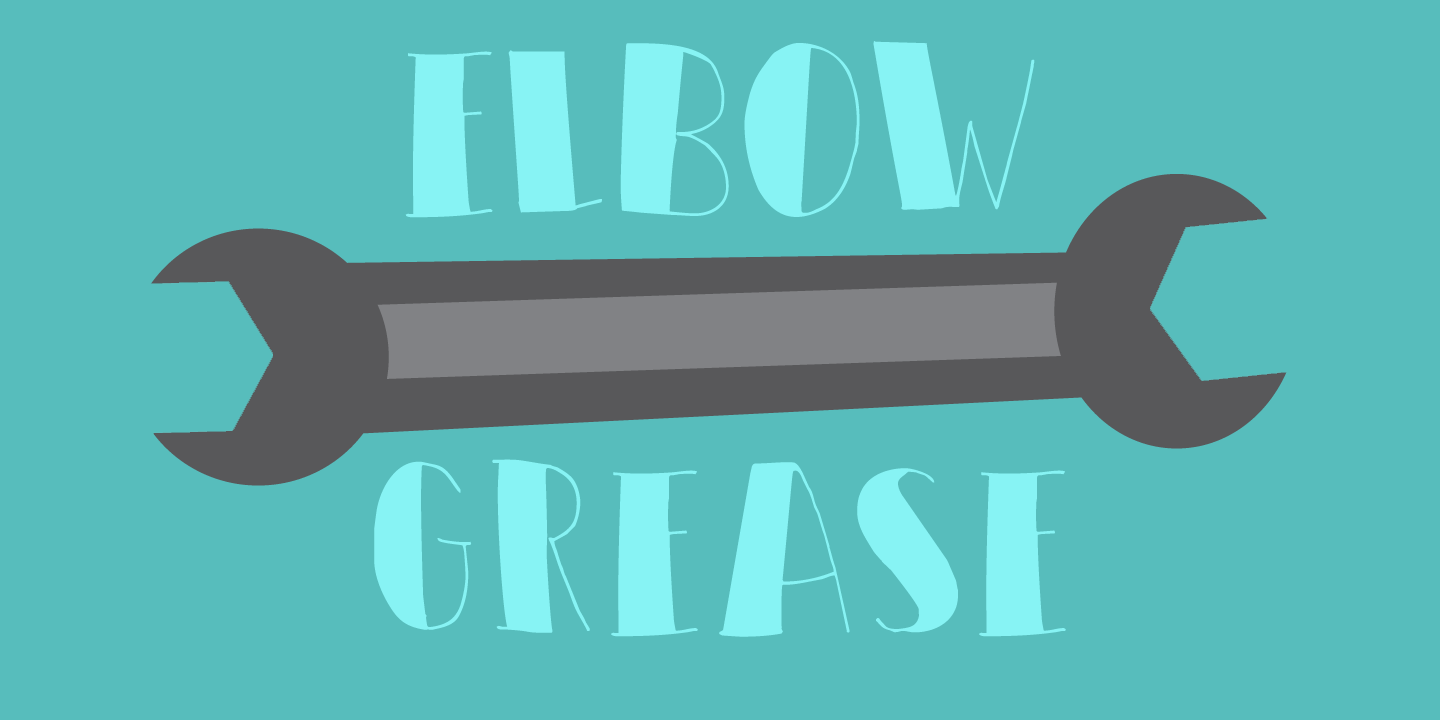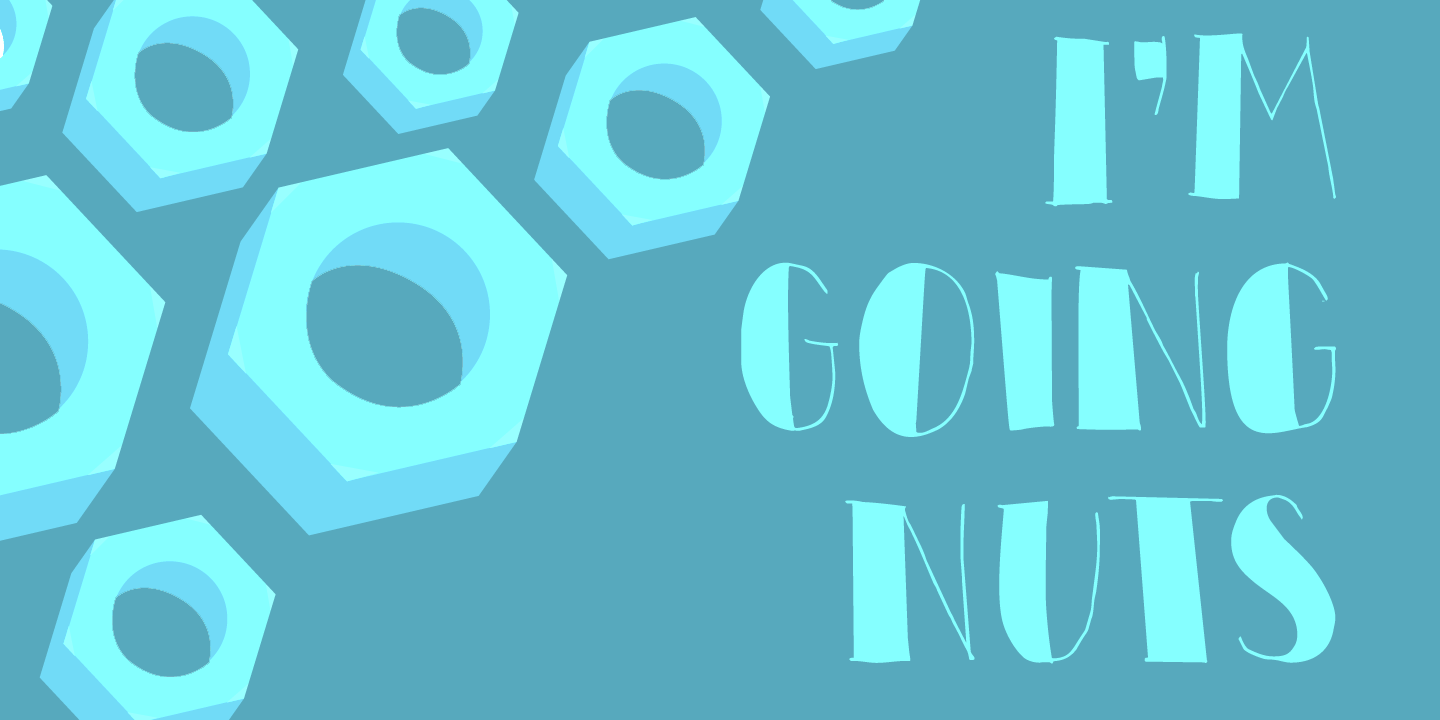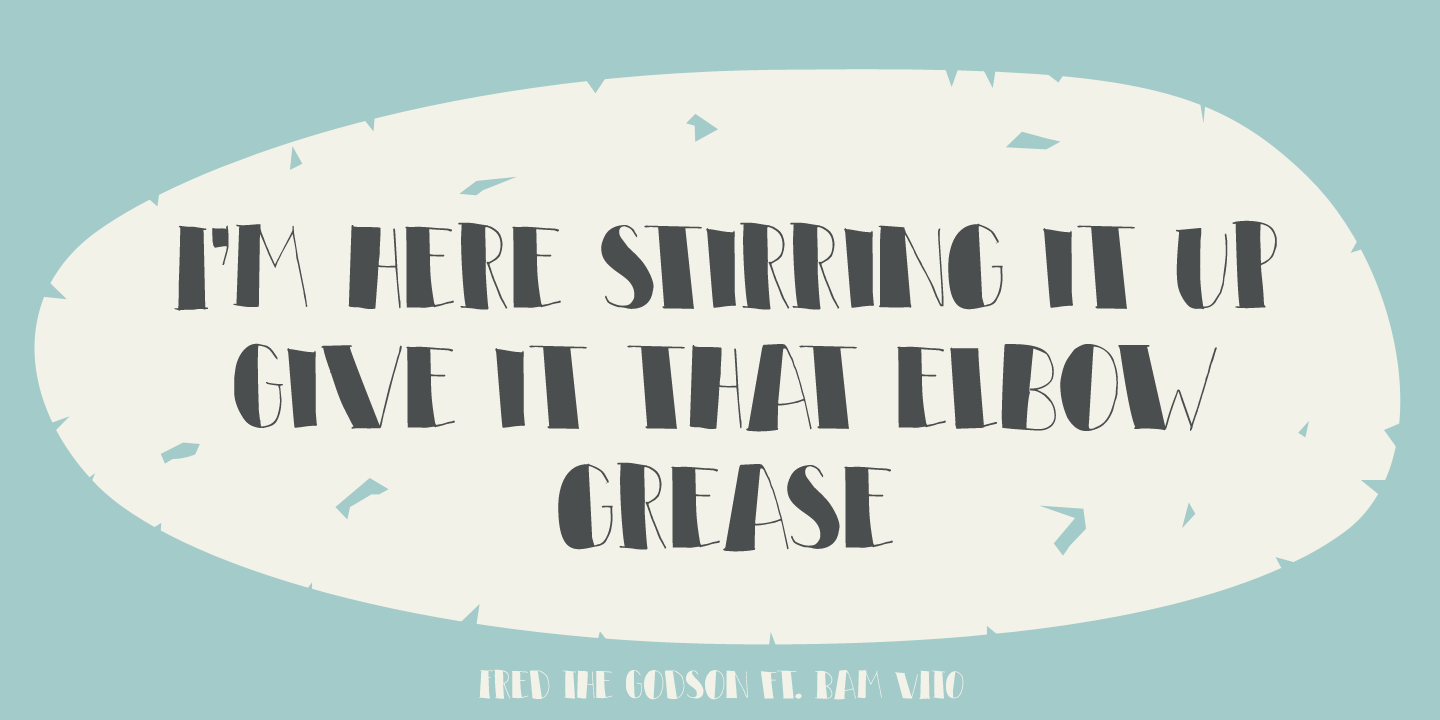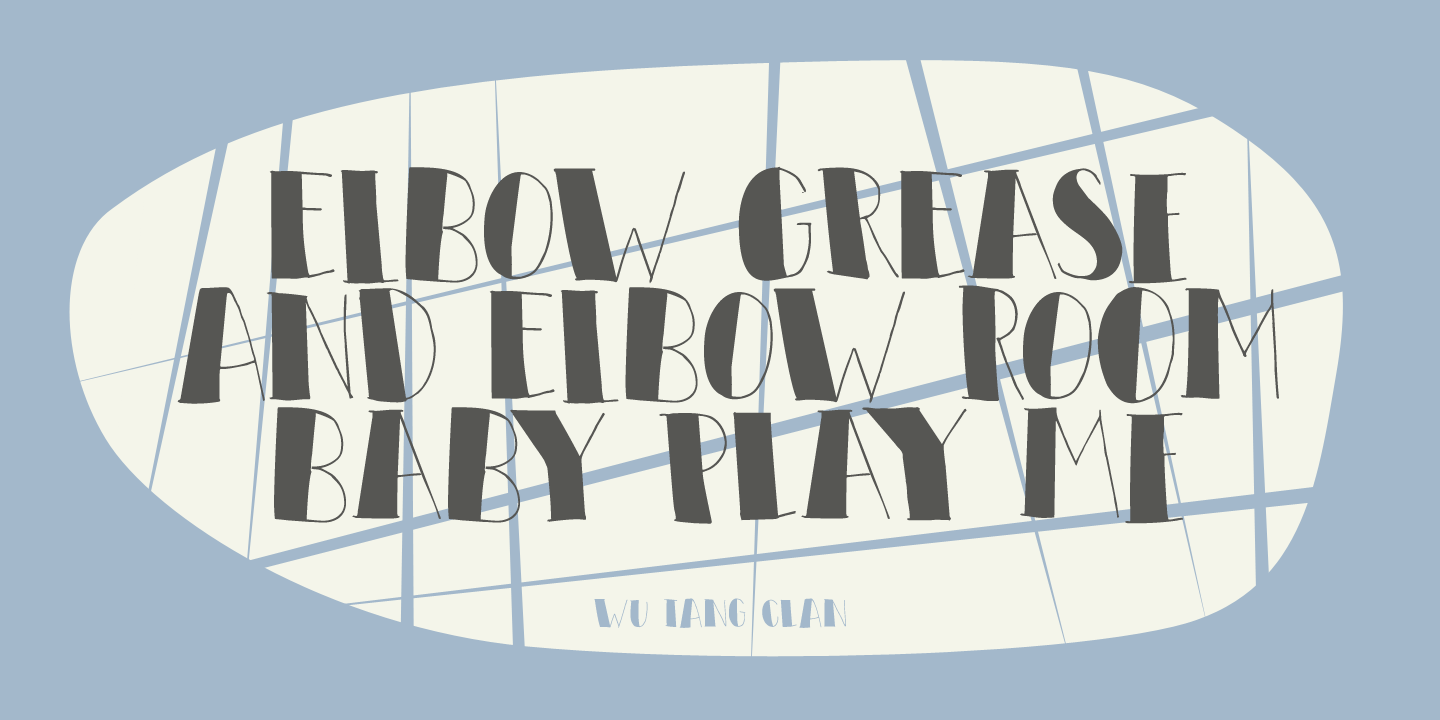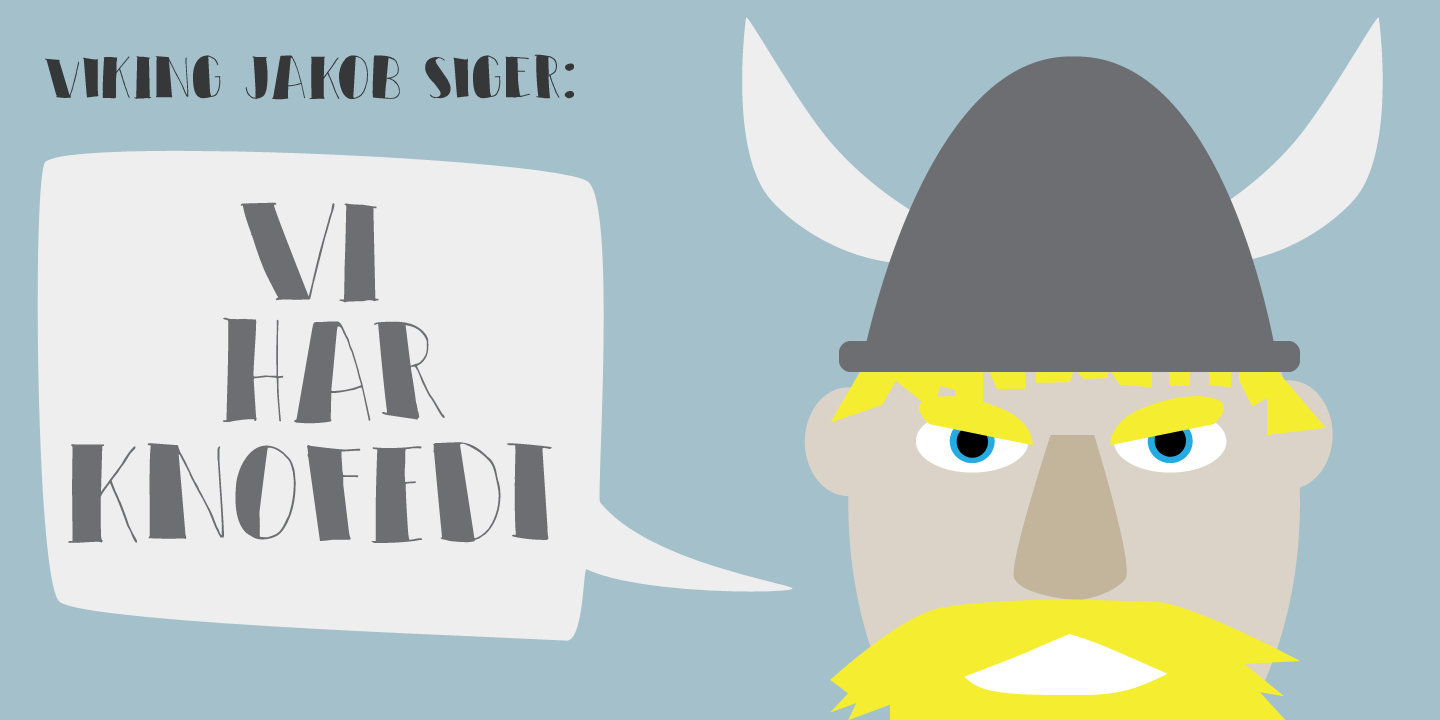
Elbow Grease Family (2 fonts)
Elbow Grease is a didone-ish font with some seriously warped glyphs, a lot of panache and a ‘get-it-done’ attitude. Also comes with a toolkit full of diacritics.